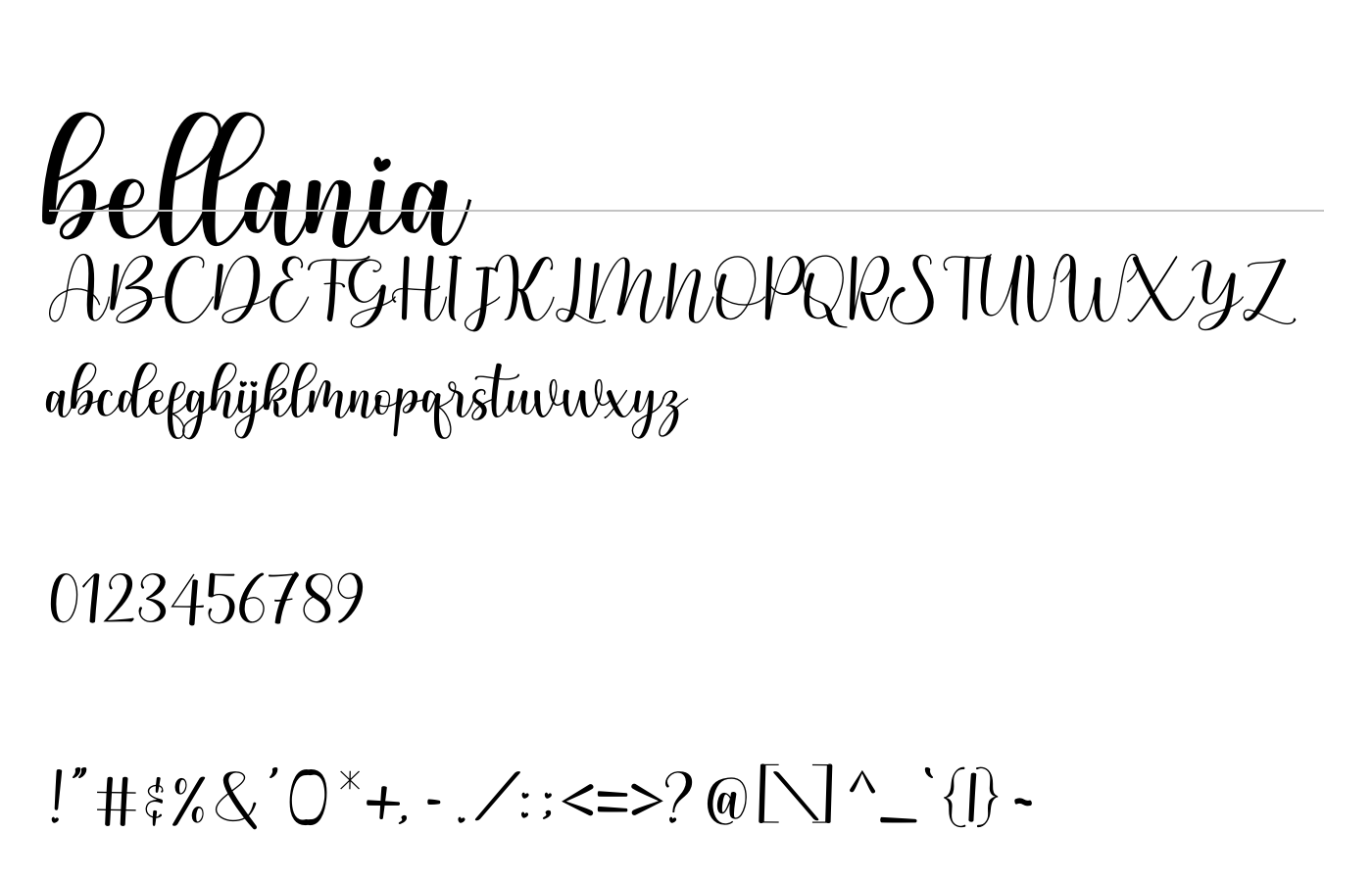
Bellania is an elegant script font with a graceful, handwritten style that combines thick and thin strokes for a lively, feminine feel. Its playful yet refined letterforms, featuring distinctive swashes and a charming heart detail on the lowercase "i," make it perfect for wedding invitations, branding, and any design seeking a romantic, personal touch. This font works beautifully in headlines and logos where a delicate, stylish impression is desired.
bellania Font
About bellania Font